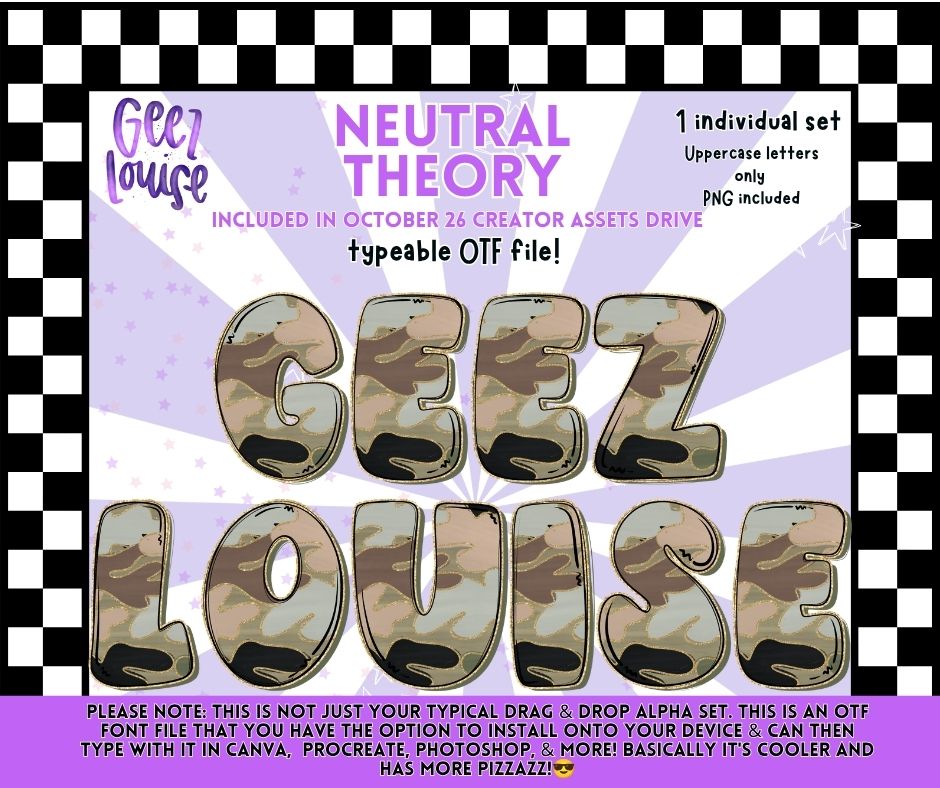
Neutral Theory Camo Alpha | OTF Font + PNG Alphabet
A modern neutral camo alpha featuring soft beige, taupe, cream, brown, and black tones. Includes 1 typeable OTF font plus uppercase letters as individual PNG files. 🤎🖤